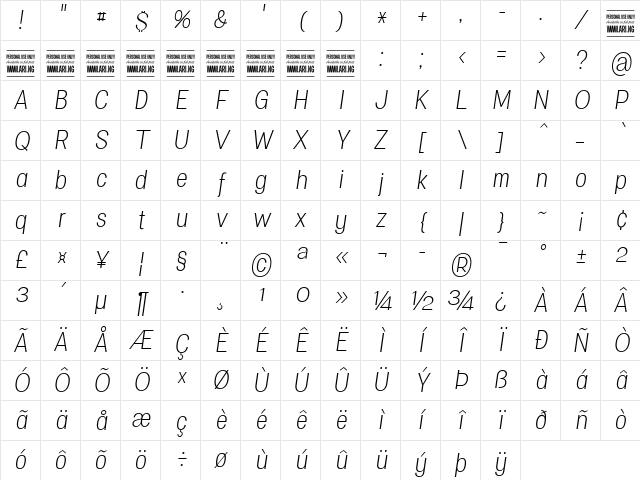
Complete Specify PERSONAL Condensed Light Italic glyph index. Displaying only characters natively supported by Specify PERSONAL Condensed Light Italic font.
Specify PERSONAL Condensed is a composed and adaptable typeface that performs quietly and consistently across a wide range of design contexts. The slanted form adds forward momentum and visual energy. Its slender proportions lend an understated elegance to any composition. Its narrow stance lets it pack a punch even in space-constrained designs.
Pro Tip: Use Specify PERSONAL Condensed for emphasis, pull quotes, and subheadings where its slanted energy can add rhythm to the layout.